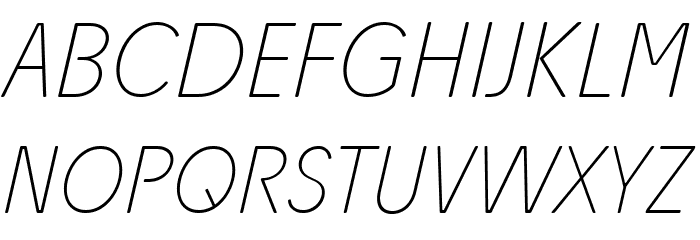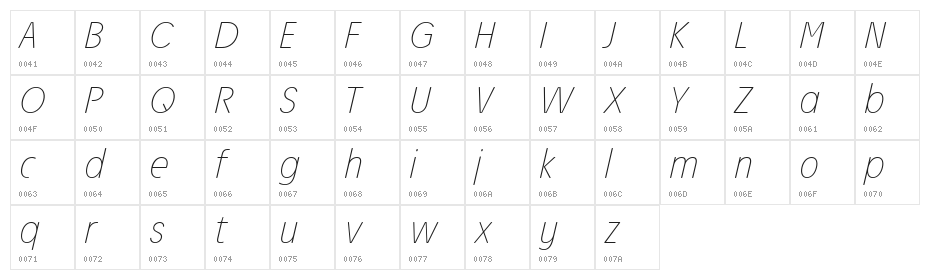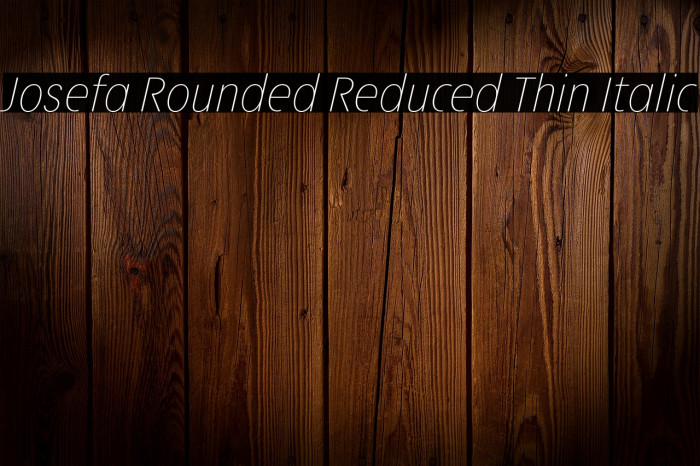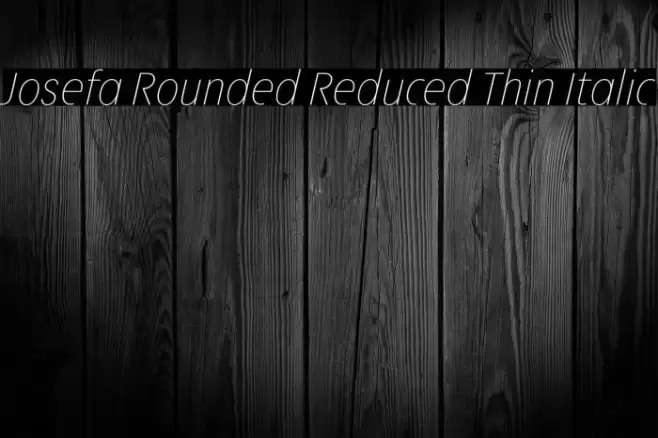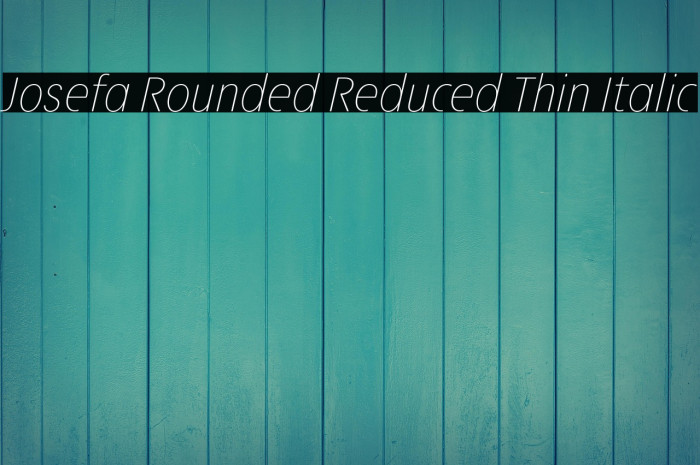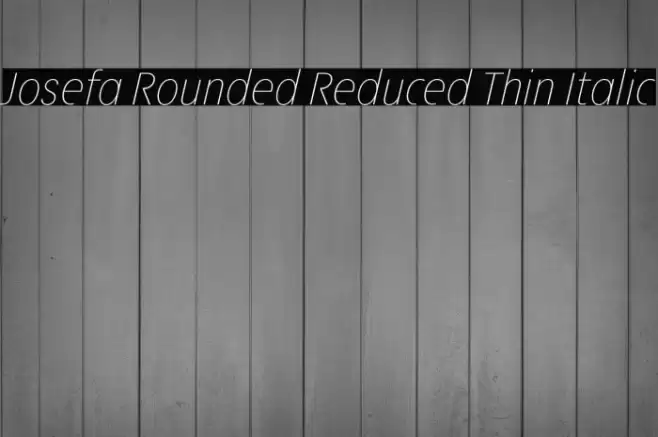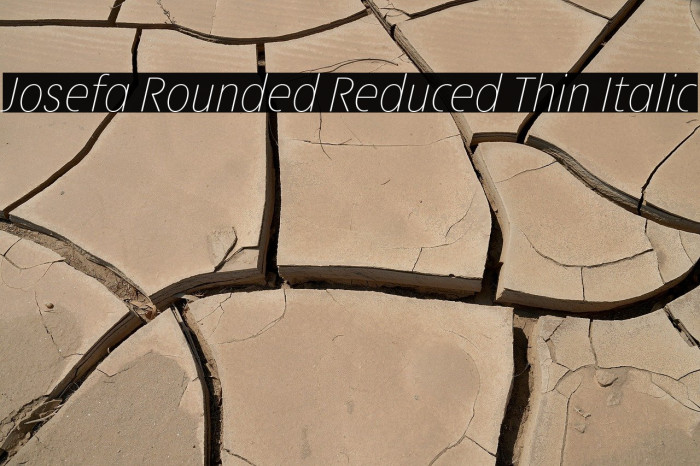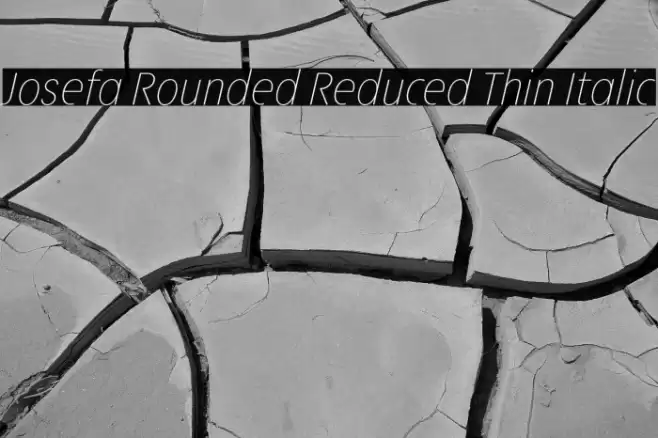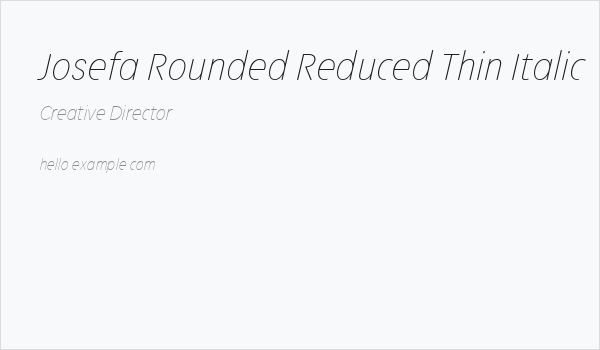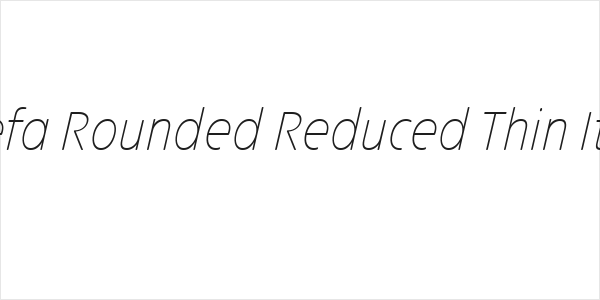
Josefa Rounded Reduced Thin Italic Font
Josefa Rounded Reduced Thin Italic Description
This font features a sleek and modern design with a rounded, thin appearance. Its italic style adds a touch of elegance and fluidity, making it suitable for contemporary projects. The characters are evenly spaced with a slight slant, enhancing readability while maintaining a stylish look. The thin strokes provide a delicate and refined aesthetic, perfect for minimalist designs. Its overall appearance is clean and sophisticated, ideal for use in digital and print media where a modern and polished look is desired.
| Proposed Projects | Ideal for branding, fashion magazines, modern websites, and elegant invitations. |